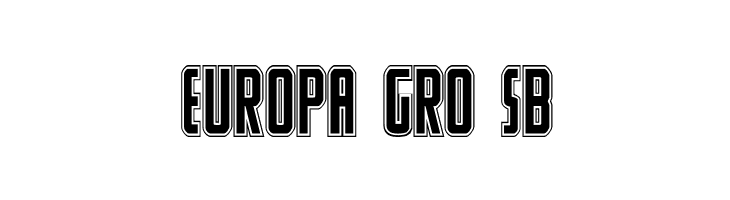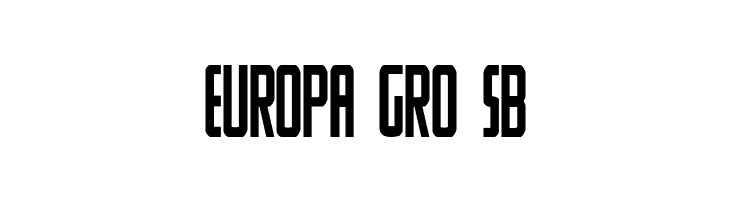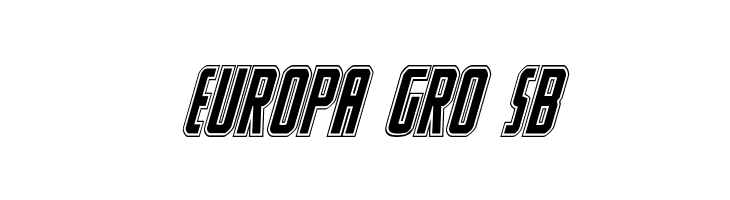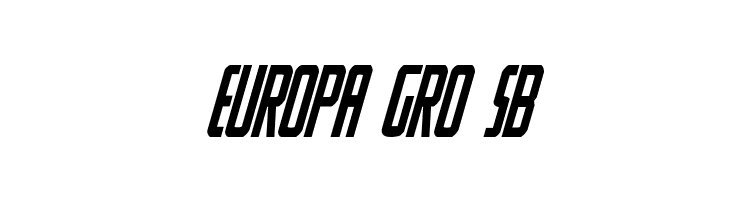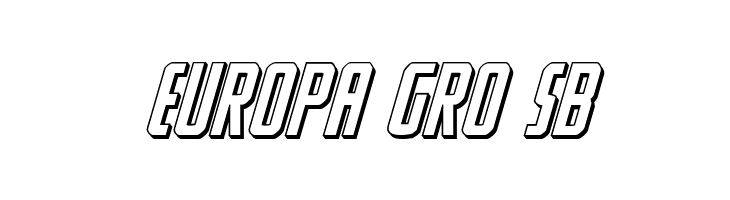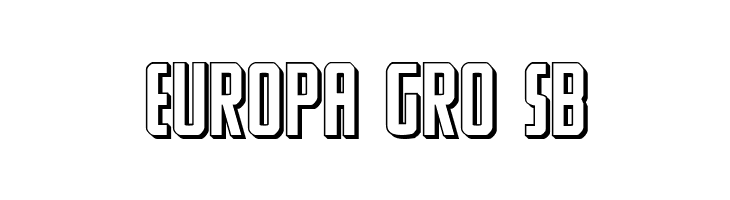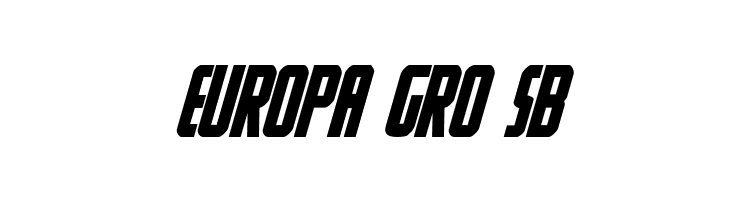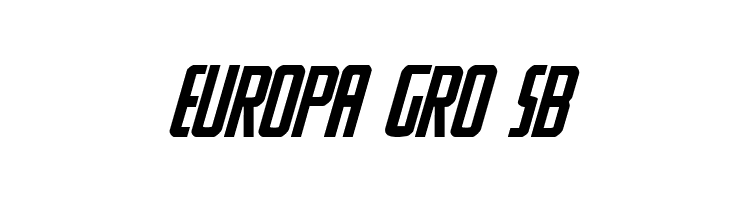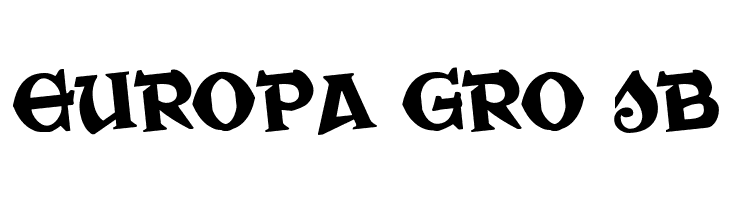
A bold, gothic-inspired font with sharp, angular edges and a dynamic, rotated style.
A bold, italic, 3D font with a modern and dynamic style.
A bold, 3D outlined font with a strong, geometric design.
A bold, italicized font with high contrast and sharp edges, ideal for dynamic headlines.
Bold, outlined font with a geometric, three-dimensional style.
A bold, blocky font with tight spacing and strong visual impact.
A bold, italicized font with a dynamic and modern style.
A bold, condensed font with geometric, uniform letterforms.
A bold, condensed, and italicized font with a dynamic and modern style.
A bold, italicized font with angular, elongated characters for a dynamic look.